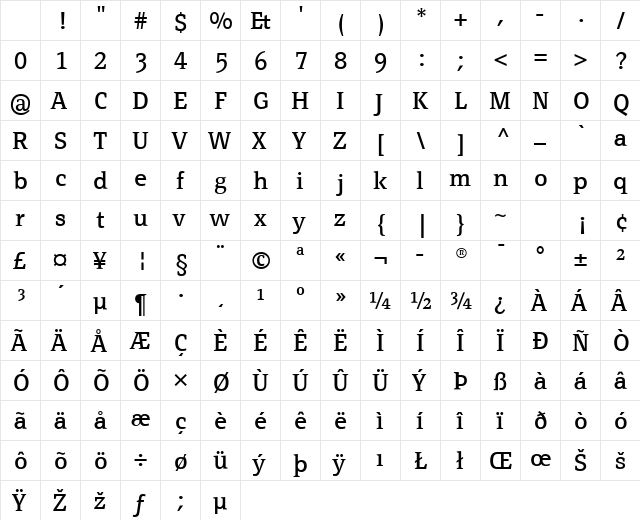
Complete PageSerifTF- Regular glyph index. Displaying only characters natively supported by PageSerifTF- Regular font.
PageSerifTF- carries the refined structure of traditional serif typography, with bracketed terminals and considered proportions that communicate credibility and craft.
Pro Tip: Use PageSerifTF- for editorial body copy and considered headline work. Pair with a neutral sans for UI elements or captions to create a classic hierarchy.
Who designed the PageSerifTF- Regular font?
This font was published by Albert Boton, published by FontShop International for the FontFont Library. Check the technical specs section for copyright and designer details.